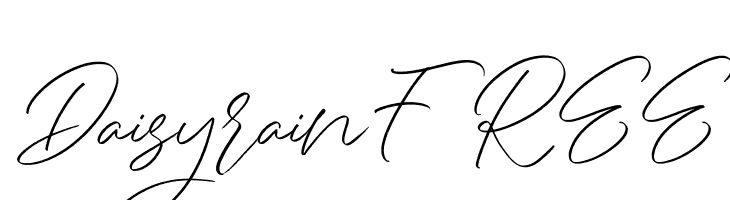
A flowing, cursive font with elegant, interconnected characters.
An elegant, flowing script font with a cursive, handwritten style.
An elegant, flowing script font with intricate loops and swashes.
An elegant script font with flowing, ornate letters and medium contrast.